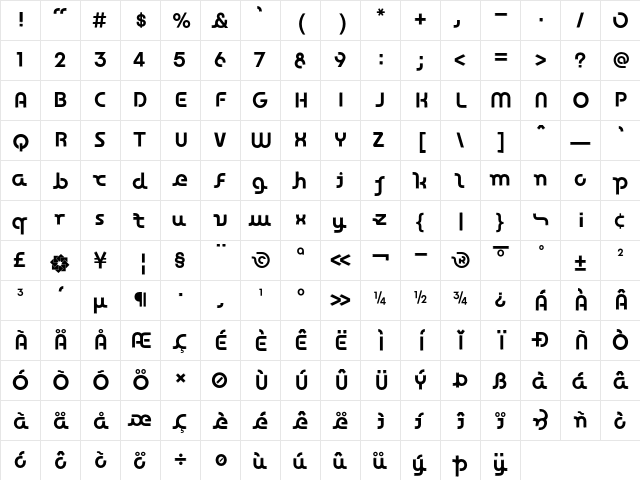
Sisamouth Regular Font Preview
Sisamouth Regular
Sisamouth Regular Font Details
| Designer | Tom Tor |
Design Context for Sisamouth Typeface
Sisamouth is a composed and adaptable typeface that performs quietly and consistently across a wide range of design contexts.